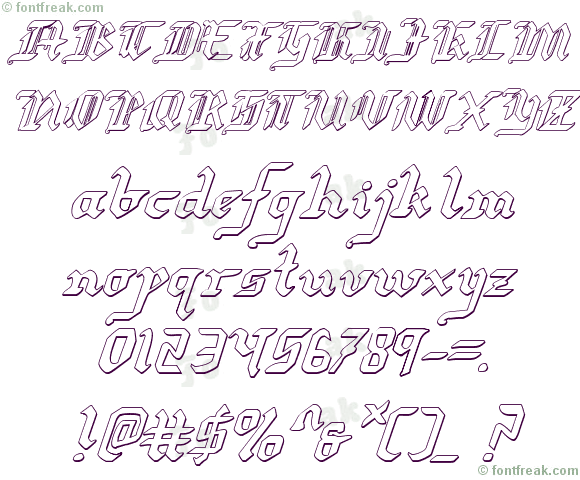
Redcoat Shadow Italic
About Redcoat Shadow Italic
Redcoat Shadow Italic, designed by Daniel Zadorozny in 2008, is a distinctive decorative font that falls under the display category. This font features an interesting interplay of thick and thin strokes, creating a dynamic visual appeal. The italicized nature of the font imparts a sense of movement, while the shadow effect adds depth and dimension, making it stand out in various design contexts. The letterforms are elegantly expanded and condensed, which enhances their readability while maintaining a unique aesthetic.
This font is particularly well-suited for creative projects that demand attention. It excels in applications such as movie posters, where its bold characteristics can effectively capture an audience's interest. Additionally, it makes a striking choice for restaurant menus, lending a touch of flair to the dining experience. Wedding invitations can also benefit from its elegant style, providing a memorable first impression for guests. Graphic designers and content creators will find Redcoat Shadow Italic invaluable for branding projects that require a touch of sophistication and originality.
What sets Redcoat Shadow Italic apart is its ability to combine elegance with a hint of playfulness, making it suitable for a wide range of applications. Whether you're aiming for a classic or contemporary look, this font provides the perfect balance, ensuring that your design remains captivating and memorable. With its rich visual language, it invites creativity, making it a standout choice in the realm of decorative typefaces.